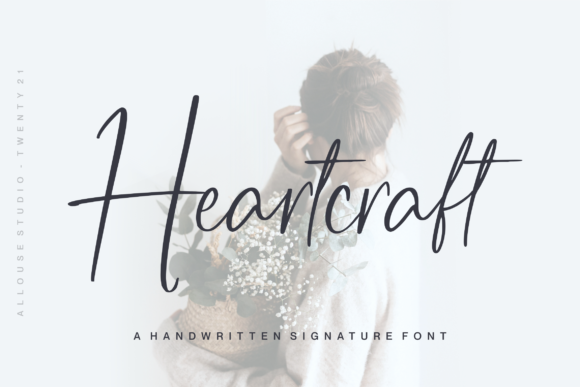
Journey into the realm of Heartcraft, where letters dance with whimsy and charm, beckoning you to unleash your creativity. A script font graced with elegance and a slender silhouette, Heartcraft is a symphony of strokes that flow effortlessly, evoking the magic of handwritten notes and the nostalgia of childhood dreams.
Immerse yourself in the world of Heartcraft, where your words take on a new dimension of enchantment. With its delicate curves and graceful loops, this font breathes life into your projects, adding a touch of whimsy and a dash of heartfelt emotion. Whether you're crafting invitations for a special occasion, designing posters that spark the imagination, or writing heartfelt letters that touch the soul, Heartcraft becomes your trusted companion, guiding your words to leave an unforgettable mark.
Elevate your designs to new heights with Heartcraft, the ultimate choice for projects that demand a personal touch. Its versatility shines through, adapting seamlessly to a myriad of creative endeavors. From logos that exude elegance to branding that captures the essence of your dreams, Heartcraft becomes your muse, inspiring you to create visuals that resonate with your audience.
As you delve into the depths of Heartcraft's charm, you'll discover a font that speaks to the child within, igniting the spark of imagination and unlocking a world of endless possibilities. Whether it's a children's book that transports readers to enchanted lands or a whimsical invitation that sets the tone for a joyful celebration, Heartcraft becomes your magic wand, weaving tales that captivate and inspire.